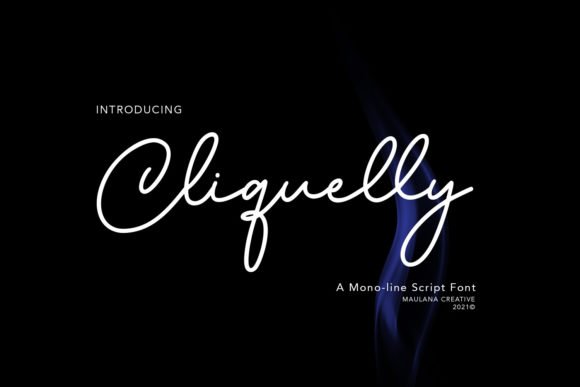
Discover the Timeless Charm of Cliquelly Font
Remember the moment when you stumbled upon the perfect font for your design project? The one that made everything fall into place, and your creative vision came alive? For many designers, this moment is a thrilling experience that can make all the difference between a good project and a great one.
Cliquelly Font is one of those magical finds that can elevate your designs to the next level. This delicate and cursive handwritten font is perfect for adding a touch of romance and whimsy to your projects. Whether you’re creating greeting cards, designing headlines, or crafting wedding invitations, Cliquelly Font is guaranteed to bring a sense of elegance and sophistication.
As a designer, you know how valuable it is to have a versatile and reliable font at your disposal. Cliquelly Font is more than just a pretty face – it’s a tool that can help you convey emotion, create atmosphere, and connect with your audience on a deeper level.
- Unique Characteristics: Cliquelly Font features a unique blend of modern and vintage elements, with a distinctive rounded shape and a wide range of stylistic alternates.
Cliquelly Font Review
First off, let’s talk about what works well with Cliquelly Font. ✨ The font’s playful, hand-drawn feel is perfect for adding a touch of whimsy to your designs. The unique letterforms and flourishes make it stand out from more traditional sans-serif fonts. I love how it adds a sense of personality to any project.
Another advantage is the font’s versatility. ✨ It’s available in a range of weights and styles, making it easy to find the perfect fit for your design. From bold headlines to delicate body text, Cliquelly Font has got you covered.
While Cliquelly Font is a great addition to any designer’s toolkit, there are a few limitations to be aware of. ⚠️ For one, the font may not be suitable for large blocks of text. The irregular letterforms can make it difficult to read at smaller font sizes or in longer passages of text.
- ⚠️ May not be suitable for large blocks of text
- ⚠️ Can be difficult to read at smaller font sizes
Overall, I’m impressed with Cliquelly Font. It’s a unique and versatile font that’s perfect for adding a touch of personality to your designs. Just be mindful of its limitations, and you’ll be golden.
Getting the Most Out of Cliquelly Font
- Pair Cliquelly Font with other creative fonts for a unique combination.
- Use Cliquelly Font for headings and titles to add visual interest.
Cliquelly Font is ideal for:
- Designing creative and playful graphics.
- Creating unique headings and titles.
- Adding a touch of whimsy to your designs.
Alternatives to Cliquelly Font for Designers
Playfair Display is an elegant and luxurious serif font that is perfect for creating a high-end look. It features intricate details and ornate flourishes that make it ideal for use in titles, headings, and other display typography. When to use: Luxury branding, high-end packaging, and formal invitations.
Comparison to Cliquelly Font: While Cliquelly Font is a modern sans-serif font, Playfair Display is a traditional serif font with a more classic and sophisticated feel. If you’re looking for a font that exudes elegance and refinement, Playfair Display is a better choice.
Arimo is a clean and modern sans-serif font that is highly legible and versatile. It features a geometric sans-serif design with a subtle flair, making it suitable for use in body text, headings, and titles. When to use: Modern websites, apps, and digital products.
Comparison to Cliquelly Font: Arimo is a more minimalist and straightforward font compared to Cliquelly Font, which has a more unique and quirky feel. If you’re looking for a font that is easy to read and modern, Arimo is a better choice.